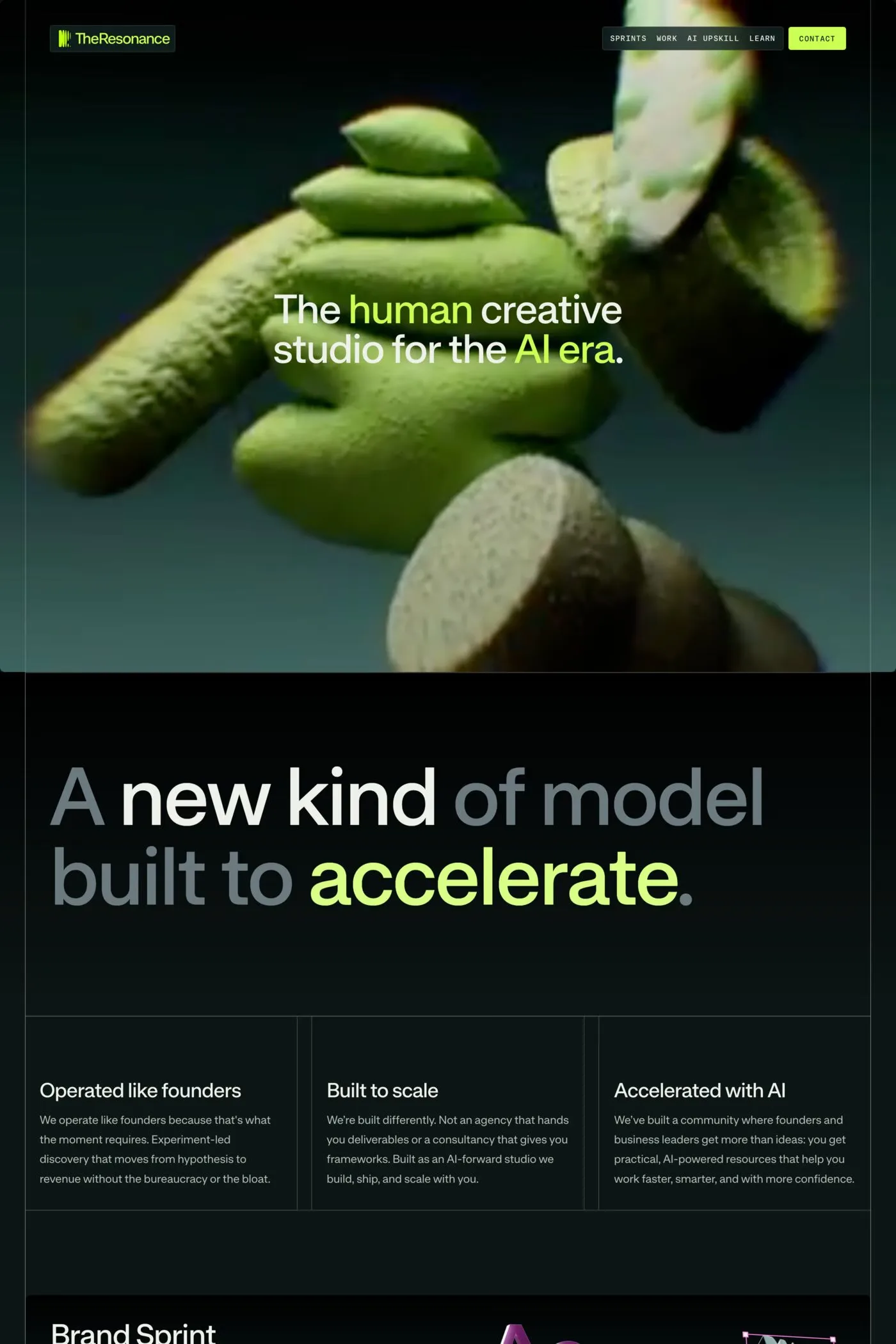
Ritual is a serif typeface from Revolver Type Foundry.
Ritual is a high-precision sans with a confident voice. Its DNA fuses elements from two different facets of the Swiss-German tradition: the neo-grotesk and the geometric sans serif.